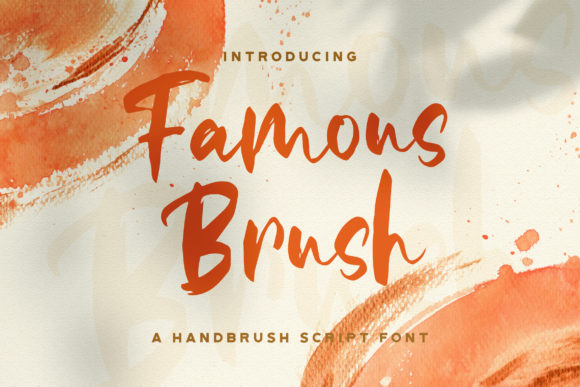
Embark on a captivating journey with Famous Brush Font, a script font brimming with personality and charm. This enchanting font family is your gateway to creating expressive designs that leave a lasting impression. Whether you're a seasoned designer or just starting out, Famous Brush Font is your perfect companion for adding a touch of elegance and sophistication to your projects.
With its smooth, flowing lines and dynamic strokes, Famous Brush Font exudes a sense of authenticity and craftsmanship. Its versatility knows no bounds, seamlessly adapting to a myriad of design styles, from elegant invitations to playful social media posts. Let your creativity soar as you explore the endless possibilities that Famous Brush Font presents.
Unleash your inner artist and let Famous Brush Font elevate your designs to new heights. Its organic, handwritten feel lends a personal touch to your projects, making them truly unique and unforgettable. Whether you're designing a wedding invitation, a marketing campaign, or simply adding a personal touch to your digital creations, Famous Brush Font is the perfect choice.
Step into the spotlight and let your designs shine with Famous Brush Font. Its captivating charm and effortless style will make your projects stand out from the crowd. Experience the transformative power of this remarkable font as it breathes life into your creative endeavors.
Join the creative revolution and make Famous Brush Font your go-to choice for adding a touch of magic to your designs. Discover the boundless possibilities that await you as you harness the power of this extraordinary font. Let Famous Brush Font be your muse, inspiring you to create designs that captivate and enchant your audience.